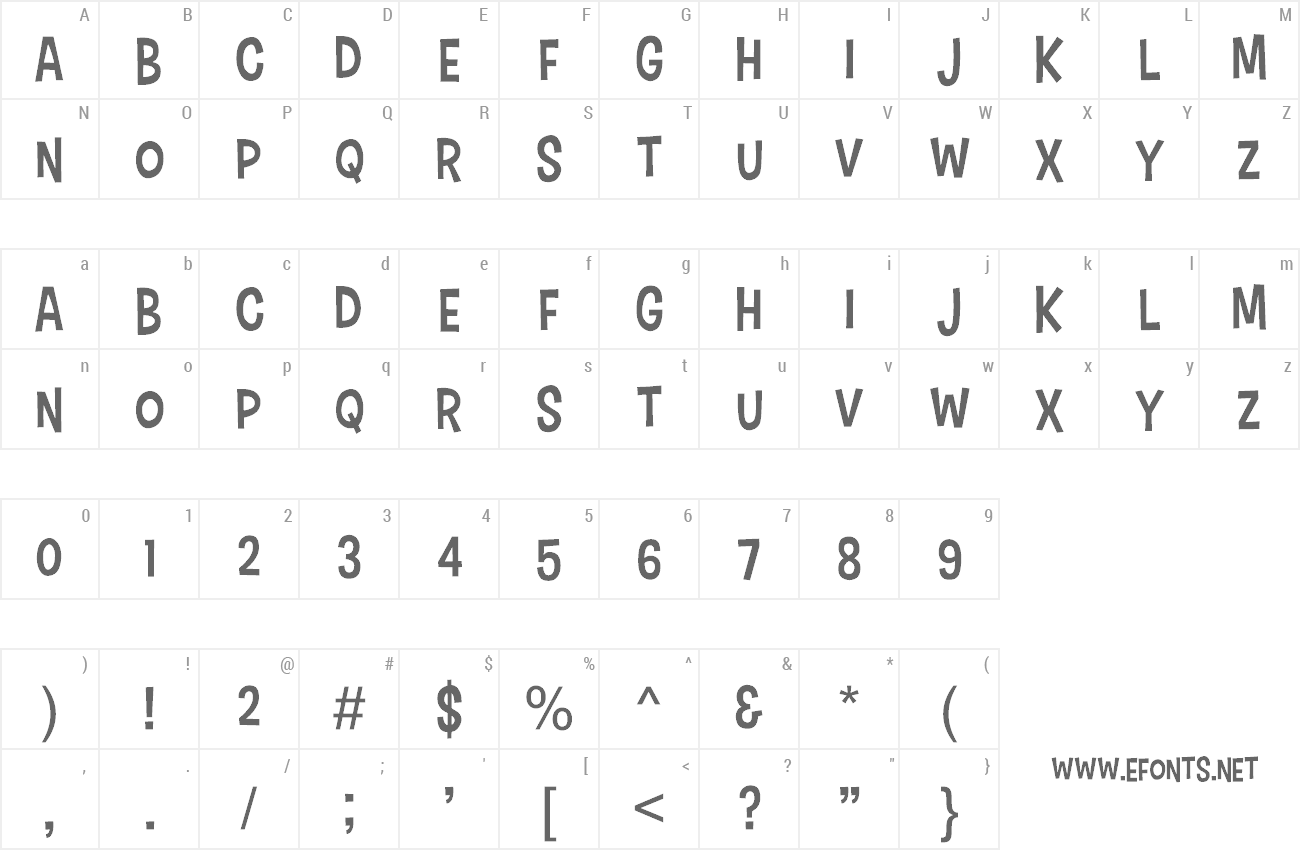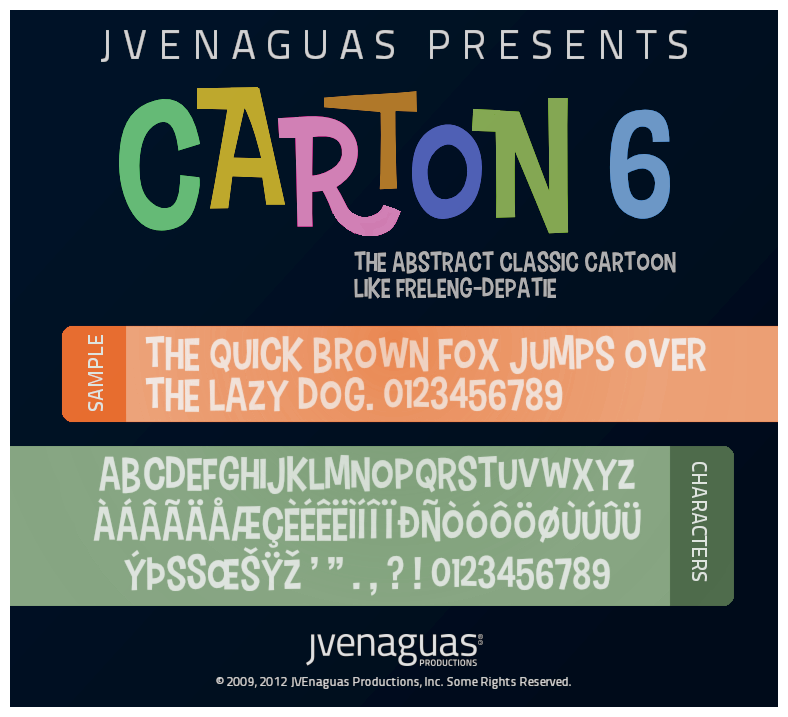
Preview and download Cartonsix NC Font. Created by Jayvee Enaguas in Fancy Cartoon styles with 100% Free license.
| Font name: | Cartonsix NC |
| Author: | Jayvee Enaguas |
| Note by Jayvee Enaguas | |
| This font has designed by Jayvee D. Enaguas and It has inspired in 1960 cartoon fonts |